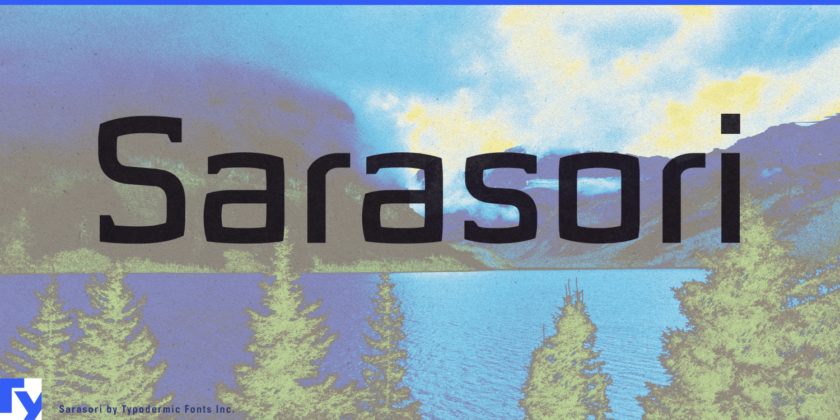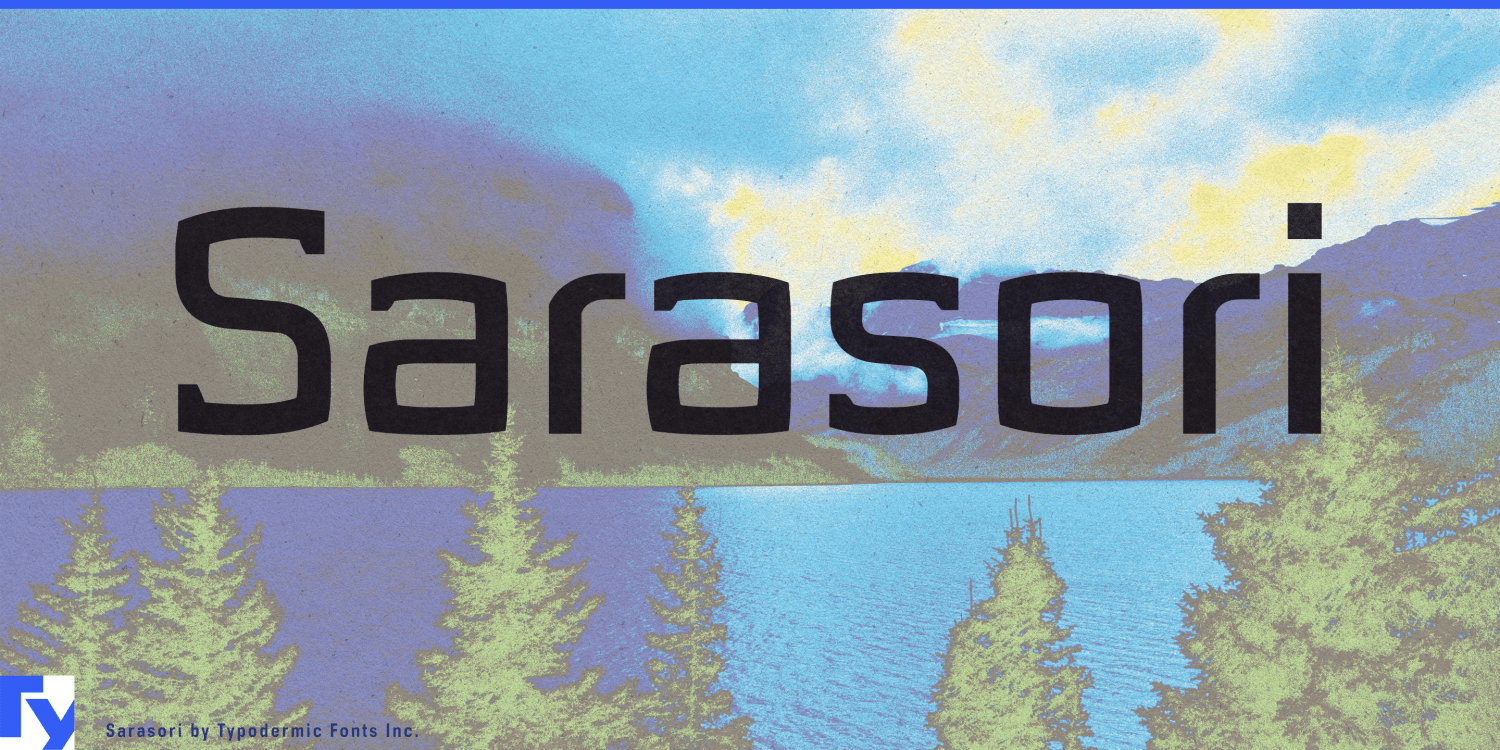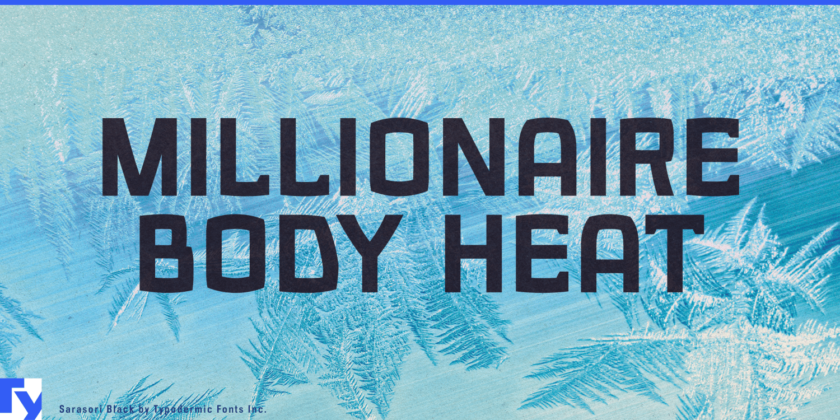
About Sarasori
Step into the world of Sarasori, a typeface that defies conventional boundaries and redefines the intersection of typography and industrial design. Born from the fusion of modern architectural principles and cutting-edge tech aesthetics, Sarasori doesn’t…